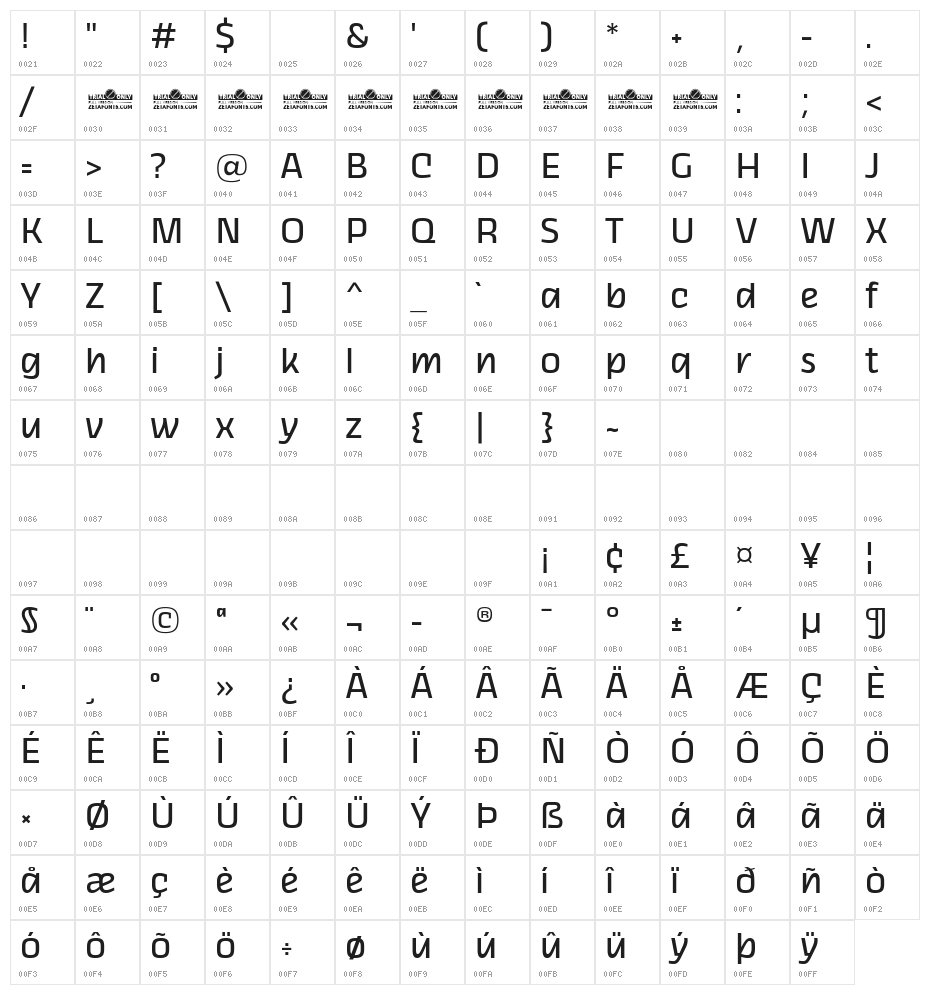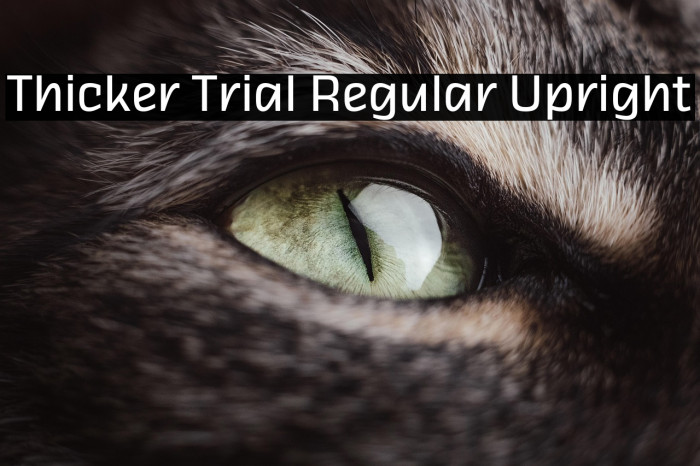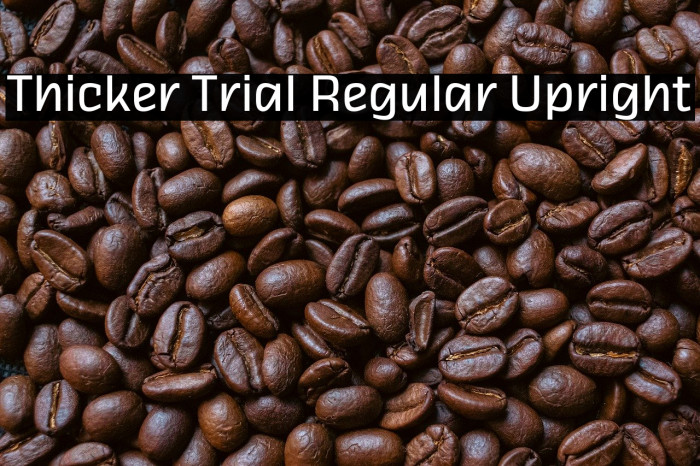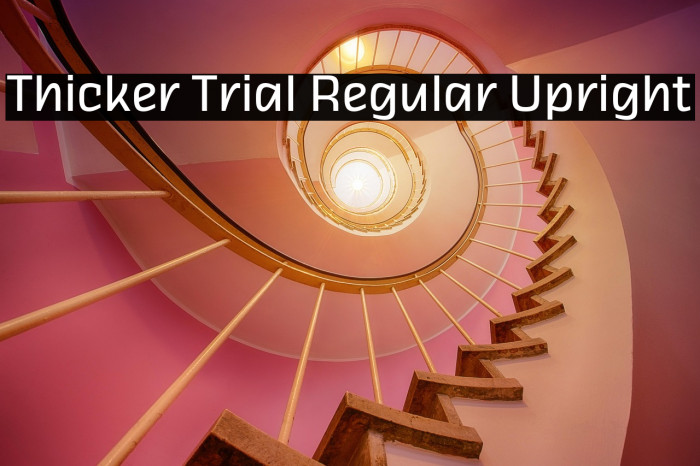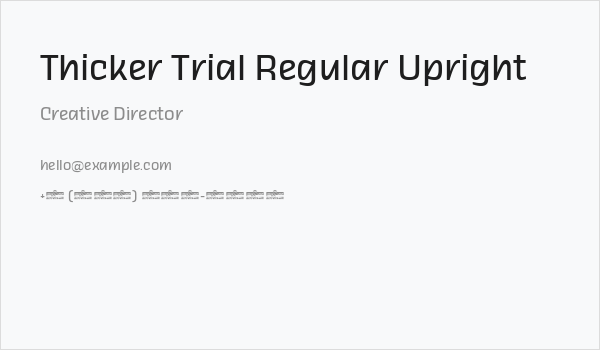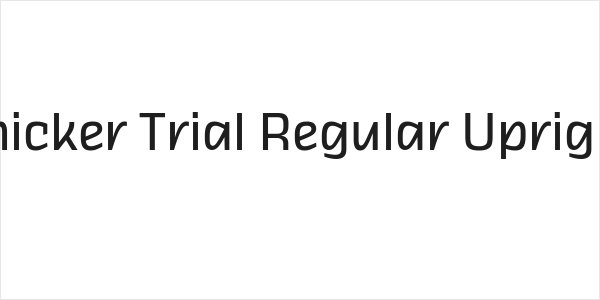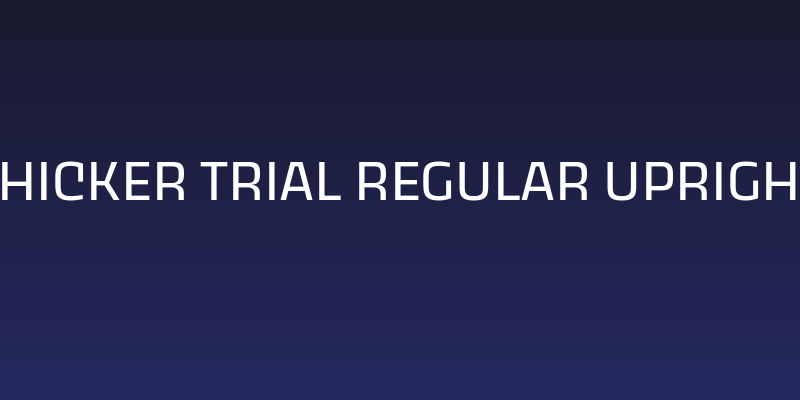
Thicker Trial Regular Upright Font
Thicker Trial Regular Upright Description
This font features a clean and modern sans-serif style with a slightly condensed appearance. The characters are uniform in width, providing a balanced and harmonious look. The uppercase letters are bold and assertive, while the lowercase letters maintain a friendly and approachable feel. The numerals are clear and easy to read, making them suitable for various applications. Special characters are well-defined, adding versatility to the font's use. The overall design is sleek and contemporary, making it ideal for digital and print media.